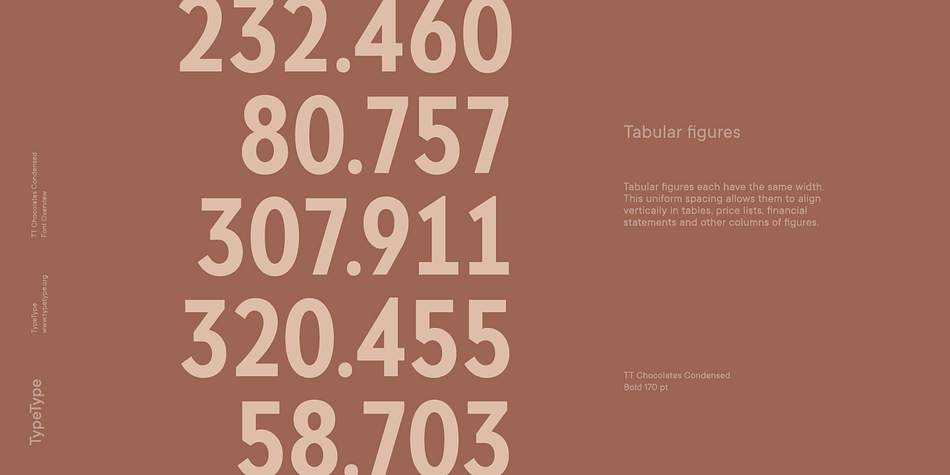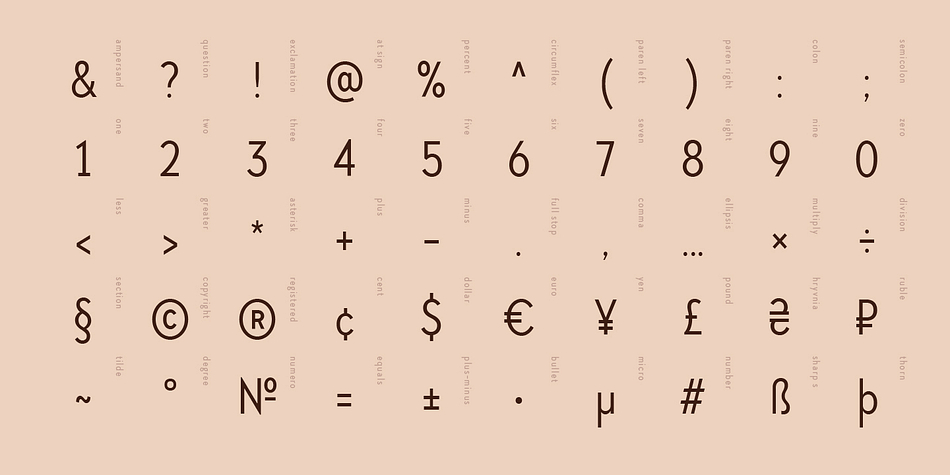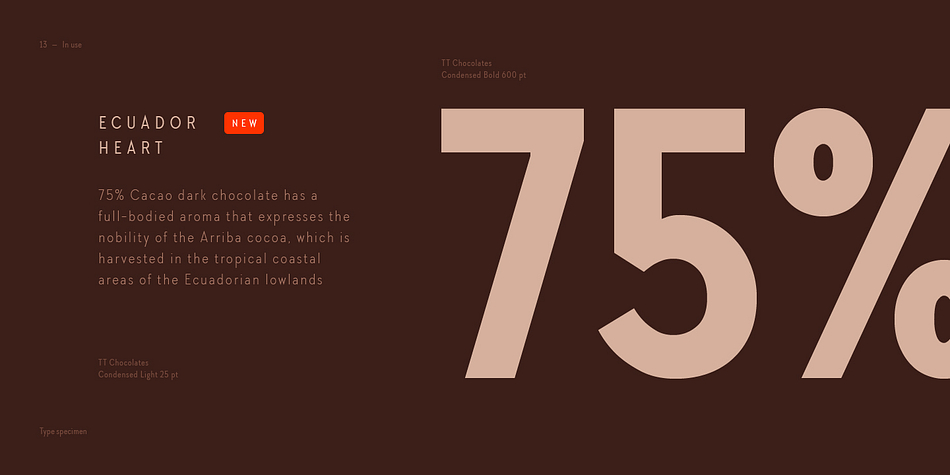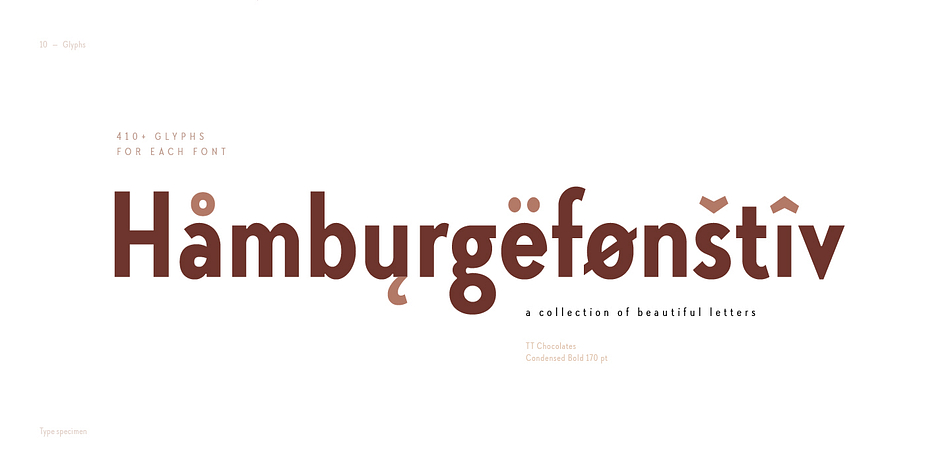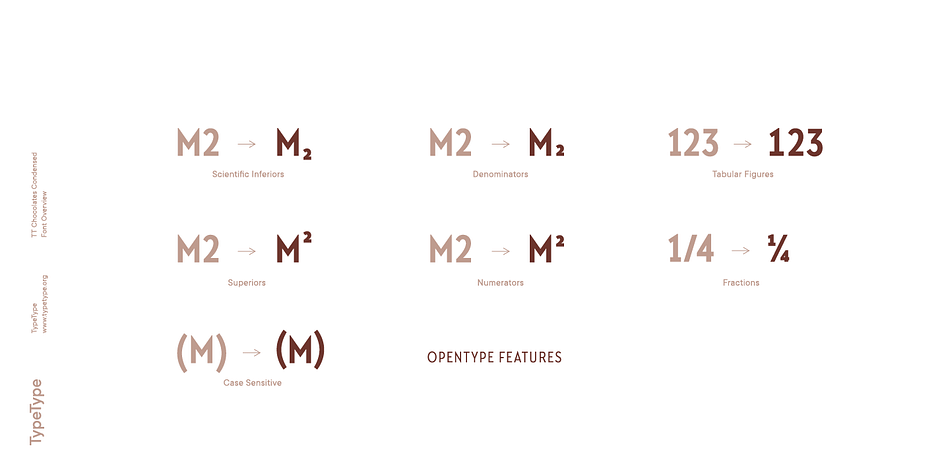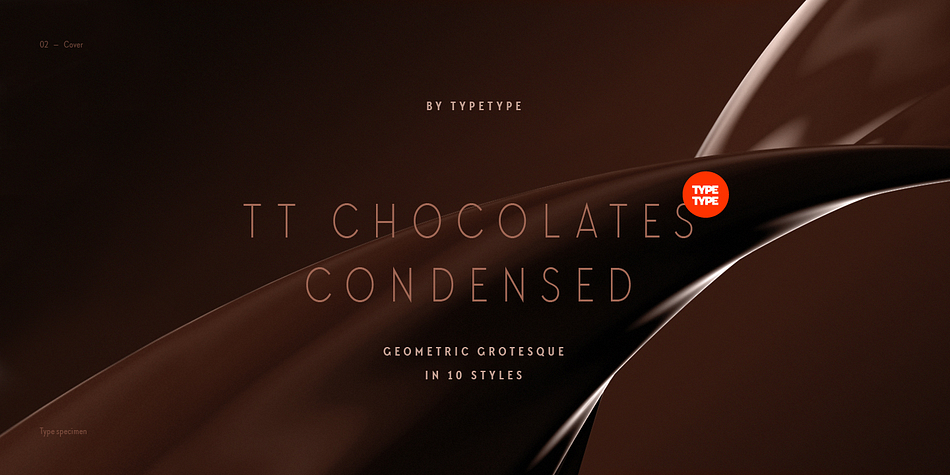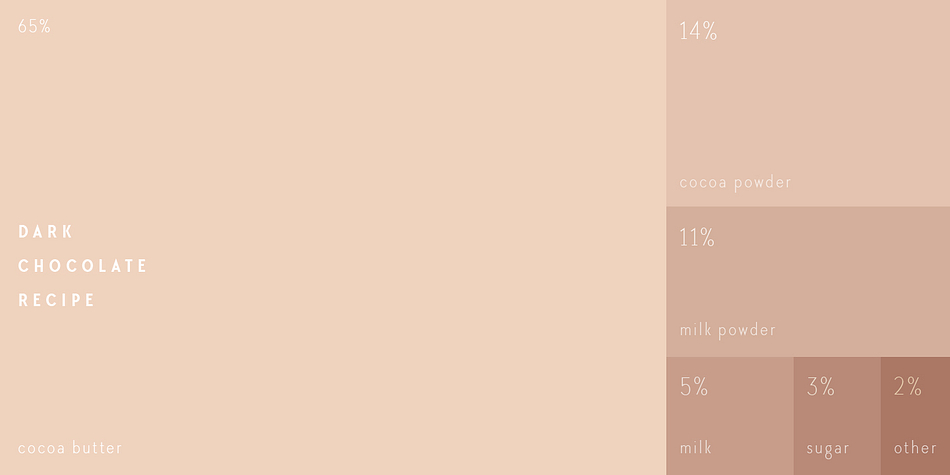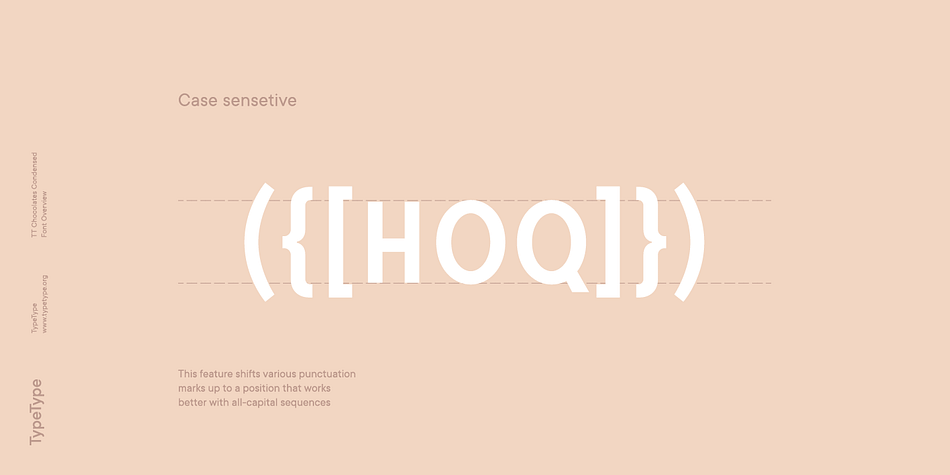
Designed by Ivan Gladkikh, TT Chocolates Condensed is a sans serif font family. This typeface has ten styles and was published by Typetype.
TT Chocolates Condensed update 1.1
What’s new.
• Case Sensitive Forms
• Tabular Figures
• Fractions
• Numerators
• Denominators
• Superiors
• Scientific Inferiors
Have you heard the expression, ‘you can never have too much chocolate’? We completely agree with this point of view and are gladly presenting you the TT Chocolates Condensed font family, the narrow version of your favorite TT Chocolates. Keeping its sisters’ best features, TT Chocolates Condensed has significantly broadened its opportunities scope and application areas. It can do any work: be the essential branding element, appear in large heading and display text arrays, or simply and elegantly find its palace on confectioneries packaging.
TT Chocolates Condensed is an elegant geometric sans-serif which can be used as the main ingredient of your design, or you can add it as a tasty accent. We offer you the formula that has become TypeType’s classic, a set consisting of 10 typefaces (Thin, Light, Regular, Bold, Black & Italics), and perfect optimization of the font family. TT Chocolates Condensed can be freely used for web-sites, mobile applications and any printed materials.